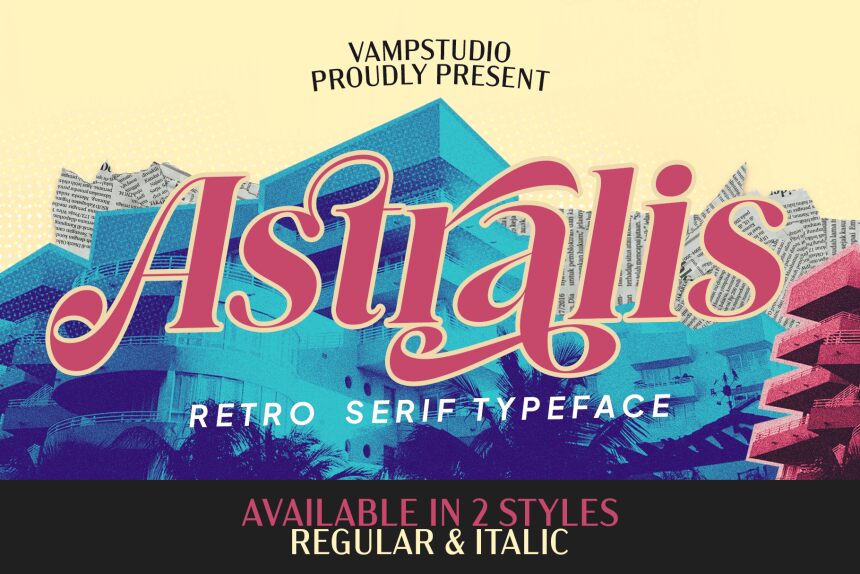
Astralis, a bold and captivating serif font crafted by Vampstudio, emanates a sense of grandeur and authority. Its striking letterforms possess a harmonious balance of classical elegance and modern refinement, evoking a timeless, sophisticated aesthetic. The font's robust weight and distinctive serifs lend it a strong, authoritative presence, making it well-suited for use in high-impact scenarios such as editorial design, branding, and advertising. Astralis' versatility allows it to seamlessly transition between formal and contemporary applications, making it a versatile choice for a wide range of design projects.
Astralis' bold and confident appearance makes it an excellent selection for headlines, titles, and other prominent textual elements. Its legibility and visual impact ensure that the font commands attention, making it an ideal choice for projects that require a sense of gravitas and impact.